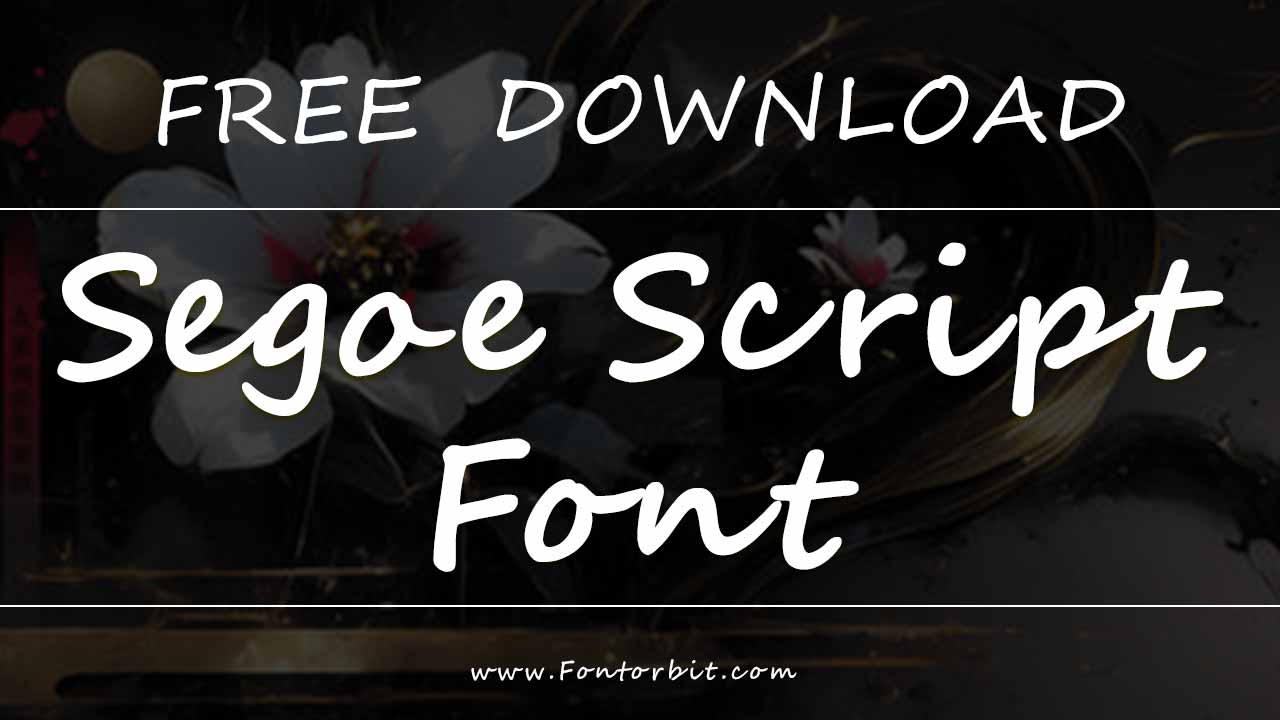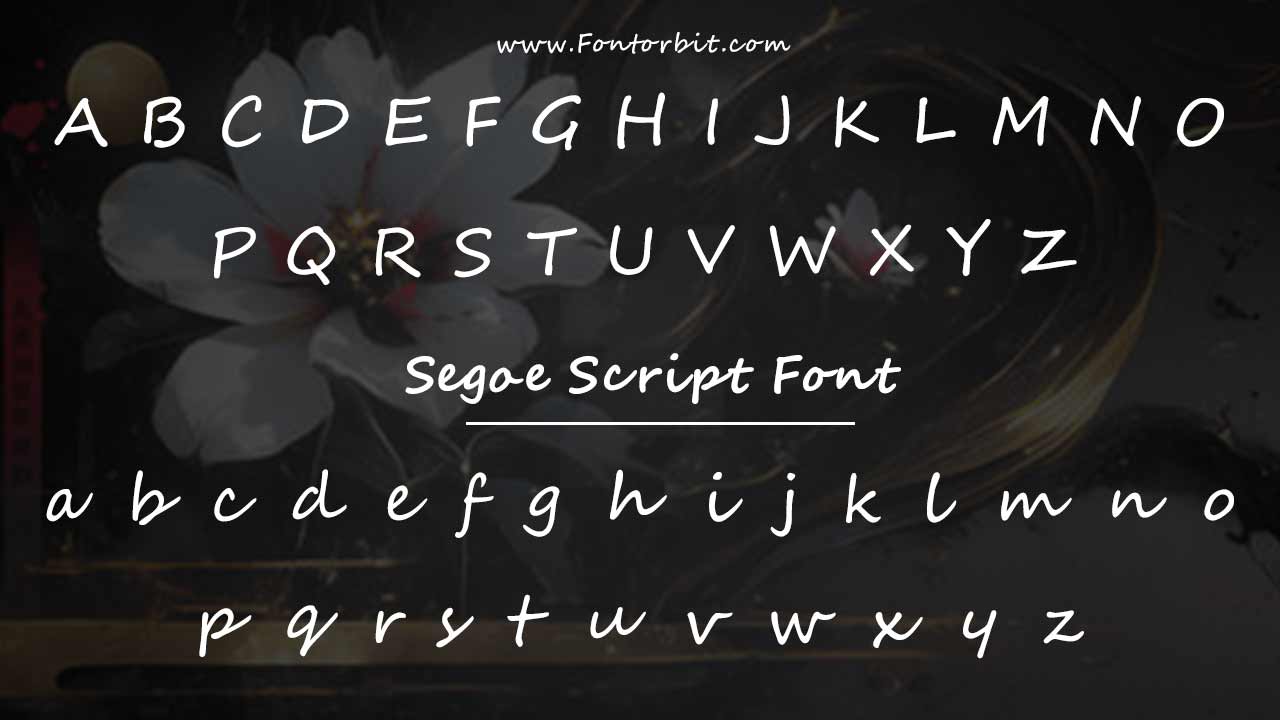
Segoe Script is one of those fonts that instantly catches your eye. Its smooth, flowing style mimics cursive handwriting, making it feel elegant and personal. Designed by Steve Matteson, this font is part of the Segoe family and is widely used in branding, logos, stylish text overlays, and product packaging. Whether creating a heartfelt invitation or designing a sophisticated brand identity, Segoe Script is a go-to choice for personal and commercial use.
Segoe Script Font Family And Styles
Segoe Script is available in two main styles:
- Segoe Script Regular – A delicate yet legible cursive script, perfect for stylish text elements.
- Segoe Script Bold – A thicker, more pronounced version, ideal for emphasis in branding and logos.
Its graceful strokes and natural flow make it a favorite for designers who want an elegant touch while maintaining readability. Unlike other script fonts, Segoe Script maintains a professional appearance without looking overly decorative. Its clean yet stylish aesthetic makes it versatile enough for multiple use cases, from wedding invitations to product packaging.
History And Design Features
1. Typeface And Style
Segoe Script is a cursive script font known for its:
- Smooth, flowing strokes that resemble natural handwriting.
- Elegance and readability, making it suitable for various design needs.
- Versatility, working well in everything from wedding invitations to modern branding projects.
This typeface captures the look of elegant handwriting without requiring extensive customization. It blends well with both modern and classic design styles, making it an ideal choice for projects requiring a timeless yet trendy touch.
2. Character Set And Glyphs
Segoe Script offers an extensive character set, supporting multiple languages, including:
- Latin – Covering most European languages.
- Cyrillic & Greek – Expanding its usability across diverse linguistic groups.
- Special Characters – Including swashes and stylish glyphs for extra flair.
With both italic and bold weights available, designers have the flexibility to create dynamic and expressive typography. It also includes ligatures and alternative characters that allow for more customized typography, giving your design a more natural, handwritten look.
3. Usage And Applications
Segoe Script excels in multiple design areas:
- Websites & Blogs – Enhancing stylish text overlays and call-to-action banners.
- Logos & Branding – Adding a personal, handcrafted feel to brand elements.
- Product Packaging – Giving an artistic touch to labels and designs.
- Invitations & Greeting Cards – Offering a sophisticated, decorative touch for formal events.
- Print & Editorial Design – Used in magazine titles, headlines, and feature articles for an added touch of elegance.
- Social Media Graphics – Works beautifully for quote images, digital invitations, and influencer branding.
Unlike sans-serif fonts like Helvetica Neue or Open Sans, Segoe Script carries an emotional warmth that makes it feel more personal and intimate. It works best when you want to create a connection rather than just deliver information. Compared to other script fonts, Segoe Script maintains a high legibility level, making it more usable in professional designs.
Best Font Pairings
Pairing Segoe Script with the right font can elevate your design. Here are some excellent combinations:
- Open Sans – A clean, modern contrast that makes Segoe Script stand out.
- Franklin Gothic – A classic, bold pairing that balances elegance and strength.
- Gill Sans – A stylish and refined combination for a sophisticated look.
- Helvetica Neue – A professional, minimalistic touch that blends well in corporate designs.
- Baskerville – A traditional serif font that enhances the script’s timeless elegance.
2.What Fonts Pair Well With Segoe Script? Open Sans, Franklin Gothic, Gill Sans, Helvetica Neue, and Baskerville.
3.What Character Sets Are Supported? Segoe Script supports Latin, Cyrillic, Greek, and Eastern European character sets.
5.Is Segoe Script Suitable For Logo Design? Absolutely! Its cursive handwriting style is perfect for elegant logos.